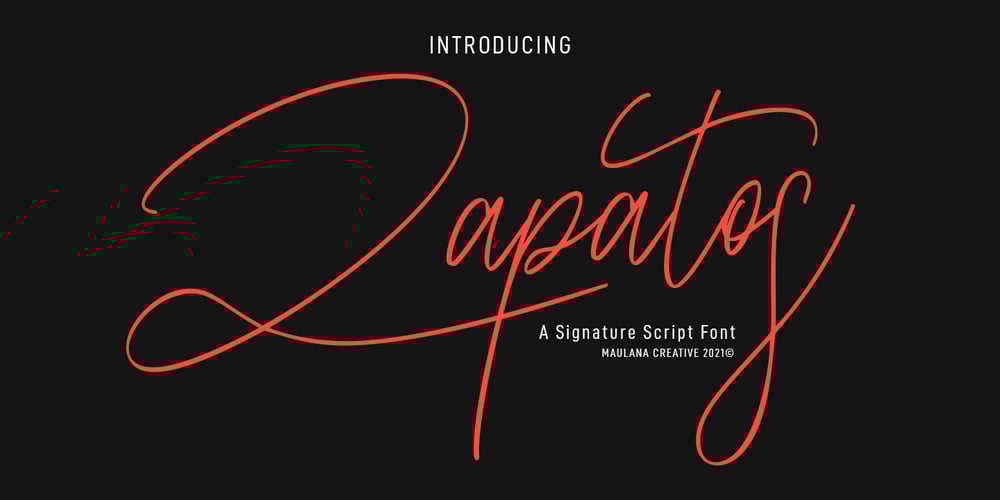
Zapatos Font Family was designed by Gilang Maulana and published by Maulana Creative. Zapatos contains 1 styles and family package options. Zapatos is a fancy feminine script font. With thin stroke, super slanted and Unique Upper and lower character with a bit of ligatures. To give you an extra creative work. Zapatos font support multilingual more than 100+ language. This font is good for logo design, Social media, Movie Titles, Books Titles, a short text even a long text letter and good for your secondary text font with sans or serif. Make a stunning work with Zapatos font. Cheers, MaulanaCreative